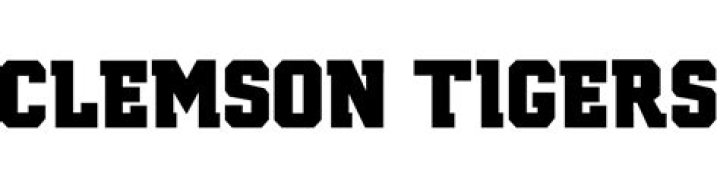
Goudy
Correspondingly, what is the Clemson symbol?
Athletic symbol
The athletic teams that represent the school are called the Clemson Tigers (or just the Tigers). Since 1928, their logo has always been based on a depiction of a tiger (or its part). The current logo featuring a tiger's paw (tilt to one o'clock) was adopted in 1977.Oct 21, 2021
Why is the Clemson paw tilted?
The 30-degree angle at which the official Paw sits is there to designate a 1:00 kickoff time for football games, which was a normal occurrence in those days. The indention at the bottom is due to a scar that the tiger who had been chosen as the subject for the logo had received before the cast was made.Jan 7, 2015
What color is Clemson today?
The Clemson Tigers NCAA team Pantone colors are PMS 1595 C for Clemson orange and PMS 268 C for regalia.
Clemson Tigers Pantone Color Codes.
Pantone Color Names for Clemson Tigers Pantone Color Code for Clemson Tigers
Regalia PMS 268 C
What are Clemson's colors?
White Purple Orange
What is font Name any two font?
15.3. 1.2 sans-serif
Latin fonts MS Trebuchet, ITC Avant Garde Gothic, MS Arial, MS Verdana, Univers, Futura, ITC Stone Sans, Gill Sans, Akzidenz Grotesk, Helvetica
Greek fonts Attika, Typiko New Era, MS Tahoma, Monotype Gill Sans 571, Helvetica Greek
Cyrillic fonts Helvetica Cyrillic, ER Univers, Lucida Sans Unicode, Bastion
What is a typeface vs font?
A typeface is a particular set of glyphs or sorts (an alphabet and its corresponding accessories such as numerals and punctuation) that share a common design. For example, Helvetica is a well known typeface. A font is a particular set of glyphs within a typeface.Aug 21, 2018
What is the most widely used font?
Helvetica remains the world's most popular font. It's best known for signage and when designing business forms, like invoices or receipts.
Is Go Tigers trademarked?
Currently there is a U.S. trademark application, serial no. 86911137, for "Go Tiger!", which may become a registration, and that may be confusingly similar with "Go Tigers", so there is a trademark infringement concern with that, andSep 7, 2017
How do you type a downward arrow?
It is quite easy, and the quick steps are:
1. Press the Alt key button.